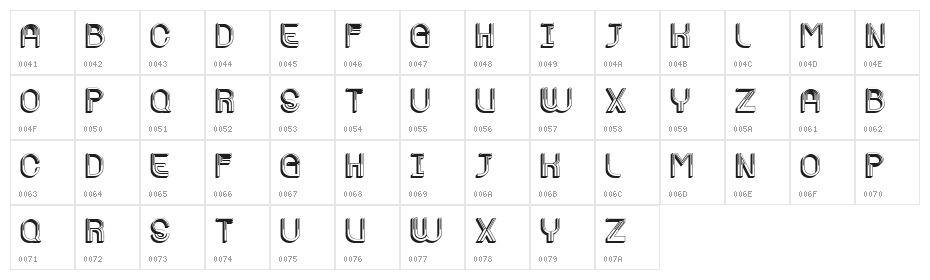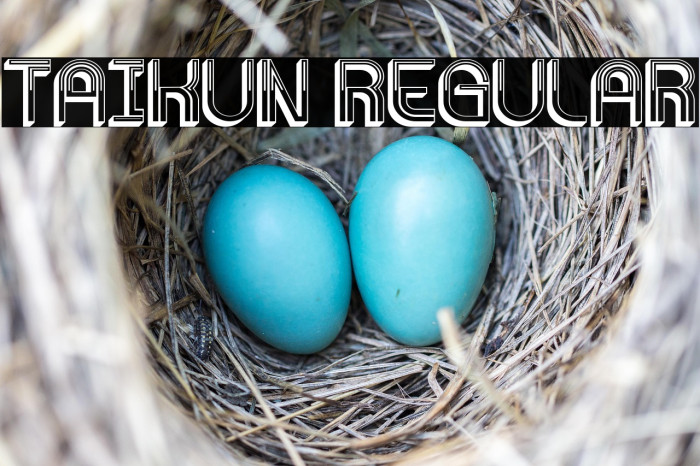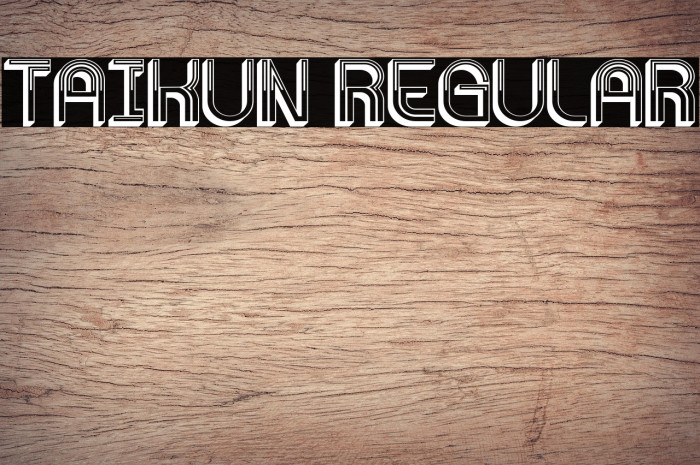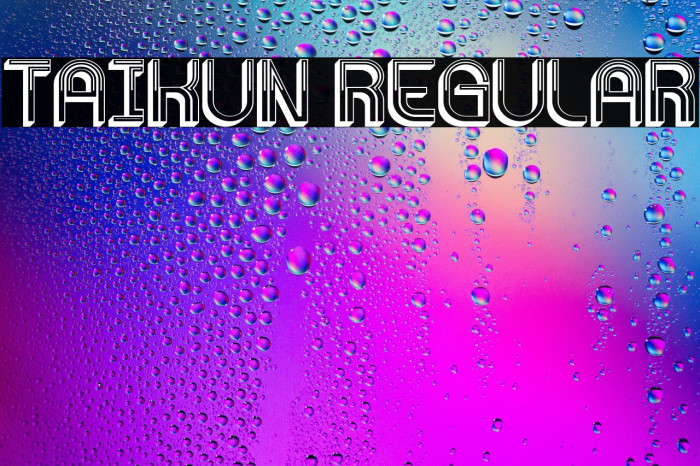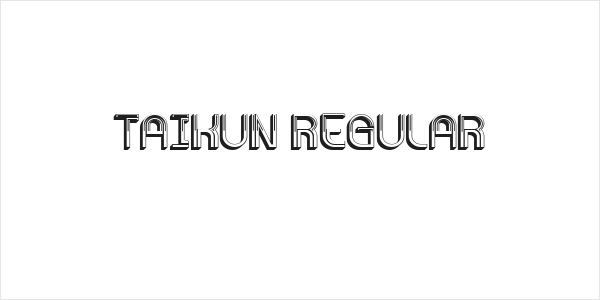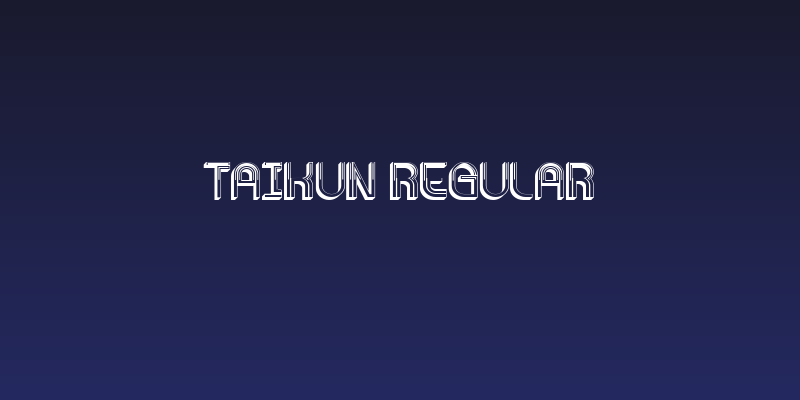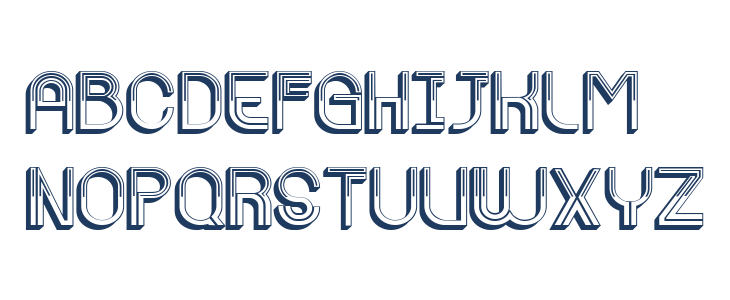
Taikun Regular Font
| Progetti proposti | Ideal for posters, logos, headlines, and branding materials that require a modern and impactful look. |
Taikun Regular